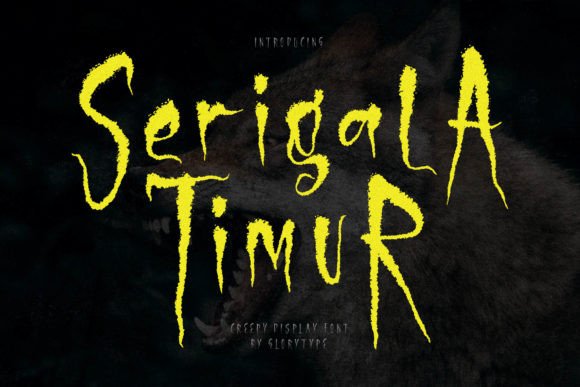
Introducing Serigala Timur – the captivating handwritten font that breathes life into your creative endeavors. Step into a world of endless possibilities, where letters dance with grace and elegance, leaving an unforgettable impression on every project you touch.
Crafted by the visionary artists at Glorytype Studio, Serigala Timur is not just a font; it's an artistic expression that captures the essence of timeless beauty. Its mesmerizing curves and intricate details evoke a sense of wonder, making it the perfect choice for those seeking to make a statement.
With Serigala Timur, your designs will transcend the ordinary and enter the realm of the extraordinary. Its enchanting script adds a touch of sophistication to logos, branding projects, homeware designs, product packaging, and more. Imagine your designs adorned with this mesmerizing font, captivating the eyes of your audience and leaving them spellbound.
Unleash your creativity and explore the boundless potential of Serigala Timur. Its versatility knows no limits, adapting effortlessly to a multitude of projects, from book covers and name cards to invitation cards and greeting cards. Let your imagination soar as you create stunning visuals that capture hearts and minds.
With Serigala Timur, every project becomes a masterpiece. Its timeless charm adds a touch of elegance to labels, photography, watermarks, special events, and all your other cherished projects. Experience the joy of seeing your designs transformed into works of art, leaving a lasting impression wherever they go.
Serigala Timur is more than just a font; it's an artistic journey that invites you to explore the depths of your creativity. Embrace its allure and witness the magic unfold as your designs take on a life of their own. Discover the boundless possibilities that await you with Serigala Timur – the font that ignites your imagination and sets your soul aflame. Don't let this opportunity pass you by; download Serigala Timur today and embark on a creative adventure like never before!